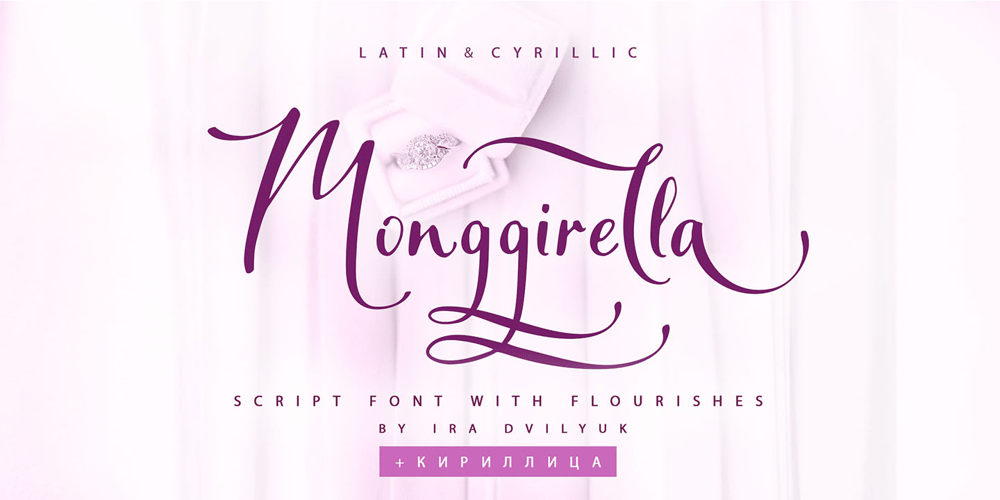
Monggirella Cyrillic Font Family was designed by Iryna Dviliuk and published by Ira Dvilyuk. Monggirella Cyrillic contains 1 styles and family package options. Monggirella script font is a pretty calligraphic script font with flourishes, that will look gorgeous on all your designs, wedding invitations, love stories, branding materials, logos, business and wedding cards, calligraphy Insta quotes elegant fashion sketches, calligraphy love monograms and much more.Monggirella script font contains the Cyrillic glyphs too.Monggirella script font contains a full set of uppercase and lowercase letters and can be used to create a handwritten calligraphy look.Some letters include the flourishes and you can receive them by typing numbers after letters. Please use the glyphs map to choose the letters with flourishesMultilingual Support for 31 languages: Latin glyphs for Afrikaans, Albanian, Basque, Bosnian, Catalan, Danish, Dutch, English, Estonian, Faroese, Filipino, Finnish, French, Galician, Indonesian, Irish, Italian, Malay, Norwegian Bokmål, Portuguese, Slovenian, Spanish, Swahili, Swedish, Turkish, Welsh, Zulu. Cyrillic glyphs support for Russian, Belorussian, Bulgarian, and Ukrainian languages. (Does font support more Cyrillic languages just type a message in the text box below and see if all characters you’ll need are there.)Please note, sometimes the text box may not display the flourishes, but they are definitely available! 🙂